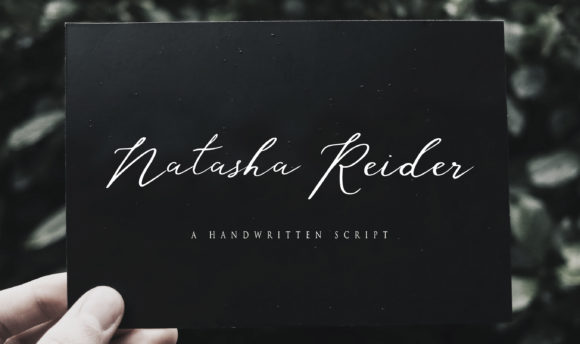
Dive into the world of enchantment with Natasha Rieder Font, a mesmerizing script that will transport your creations to new heights of elegance. Inspired by the timeless art of calligraphy, this font exudes a touch of classic charm that blends effortlessly with a modern twist.
Crafted with precision and care, Natasha Rieder's strokes dance across the page, striking a perfect balance between thin and thick. Each letter is a masterpiece, designed to enhance the beauty of your projects and leave a lasting impression.
Whether you're crafting a captivating gaming banner, a heartfelt letter, or a stunning wedding invitation, Natasha Rieder Font will add a touch of sophistication and timeless appeal. Its versatility extends beyond the gaming realm, making it an ideal choice for any project that demands a touch of elegance and charm.
Indulge in the splendor of Natasha Rieder Font and elevate your creations to new levels of beauty and sophistication. Let your imagination soar, and experience the transformative power of this enchanting script.